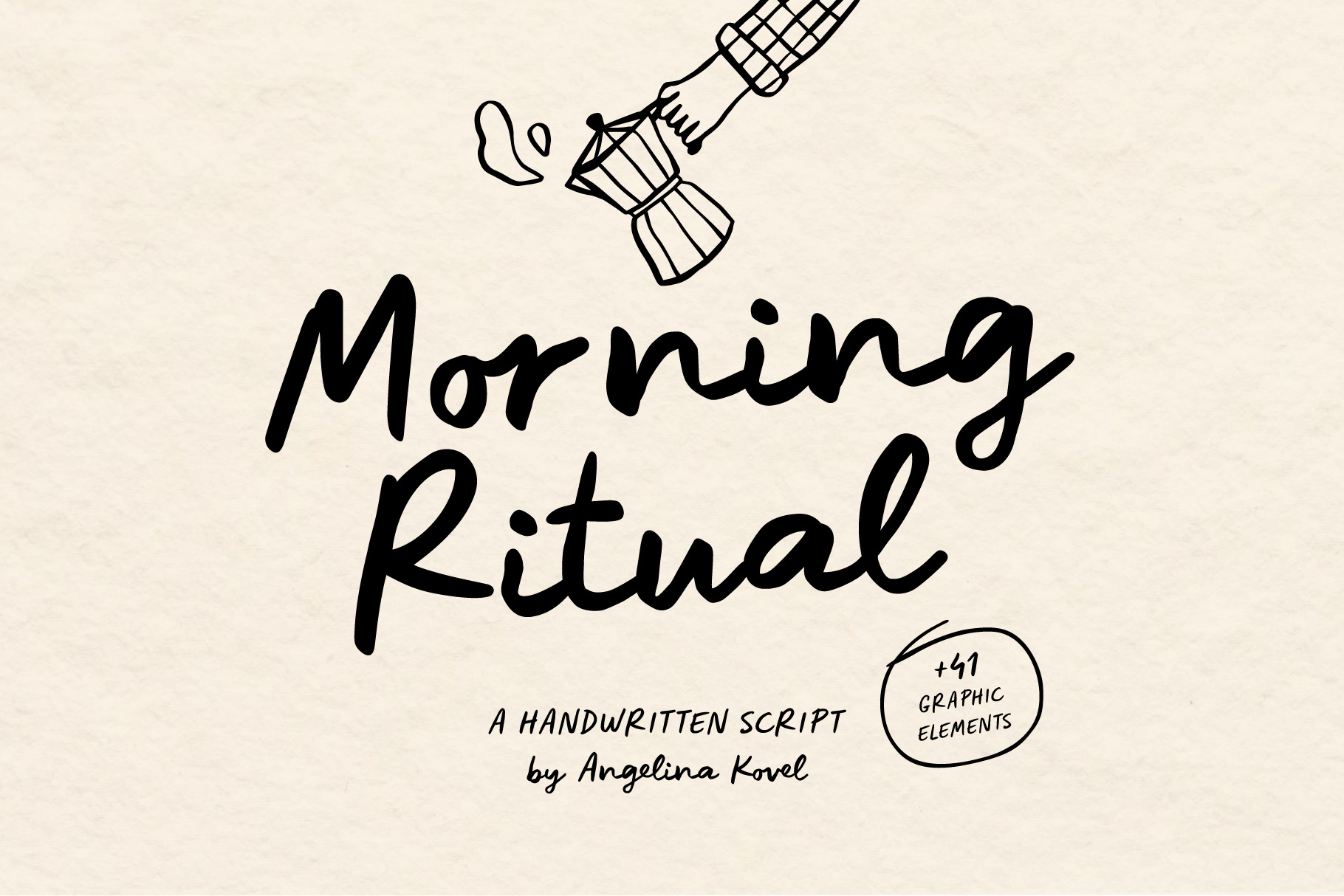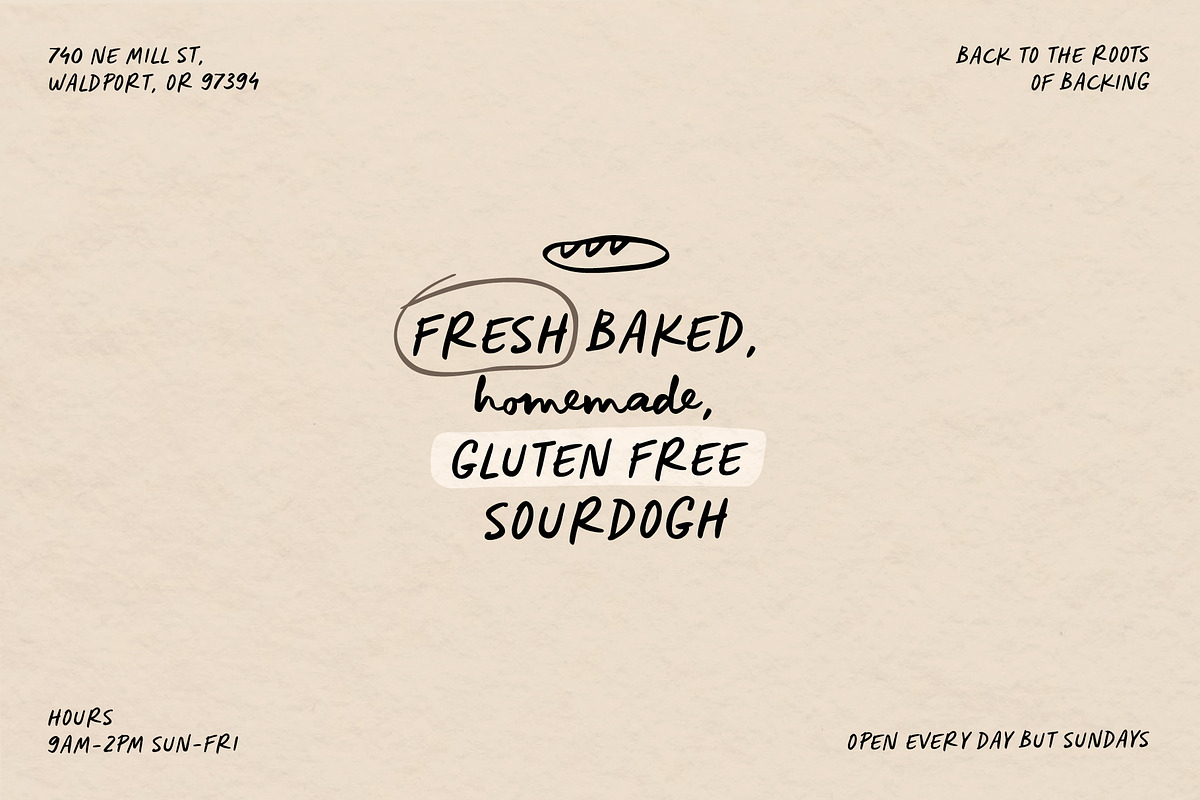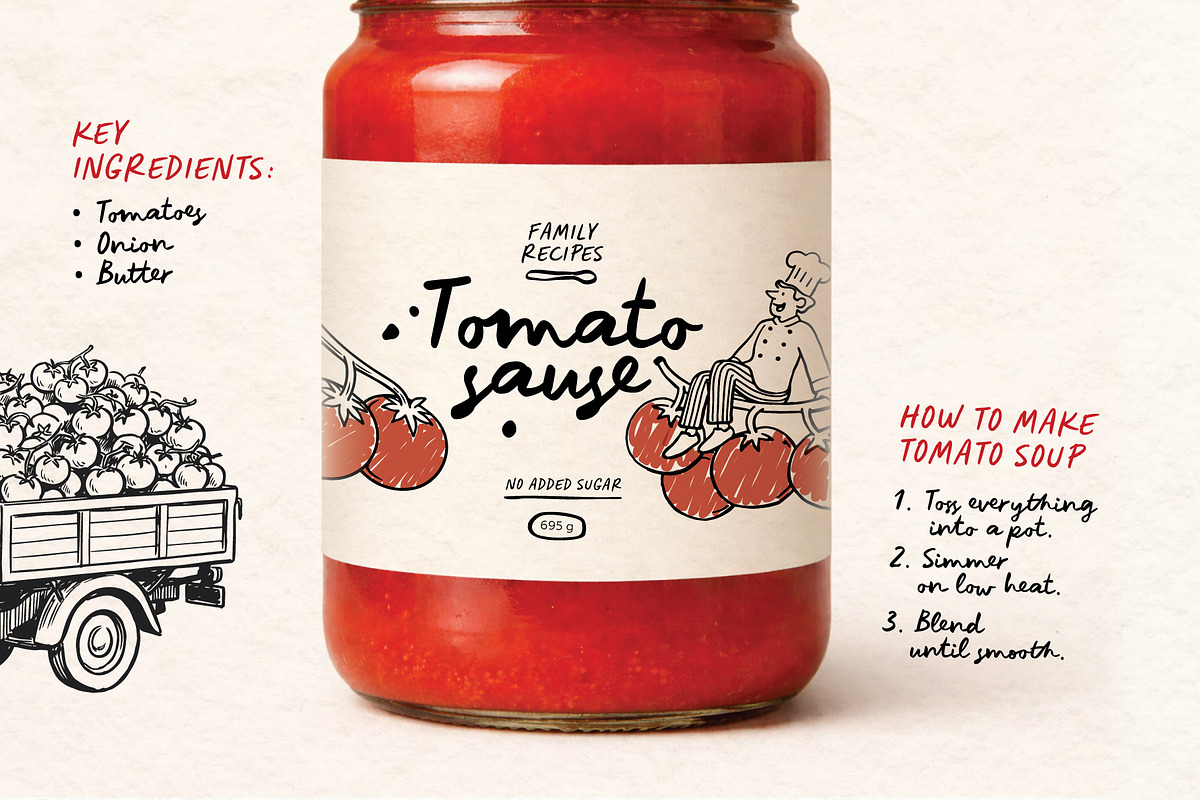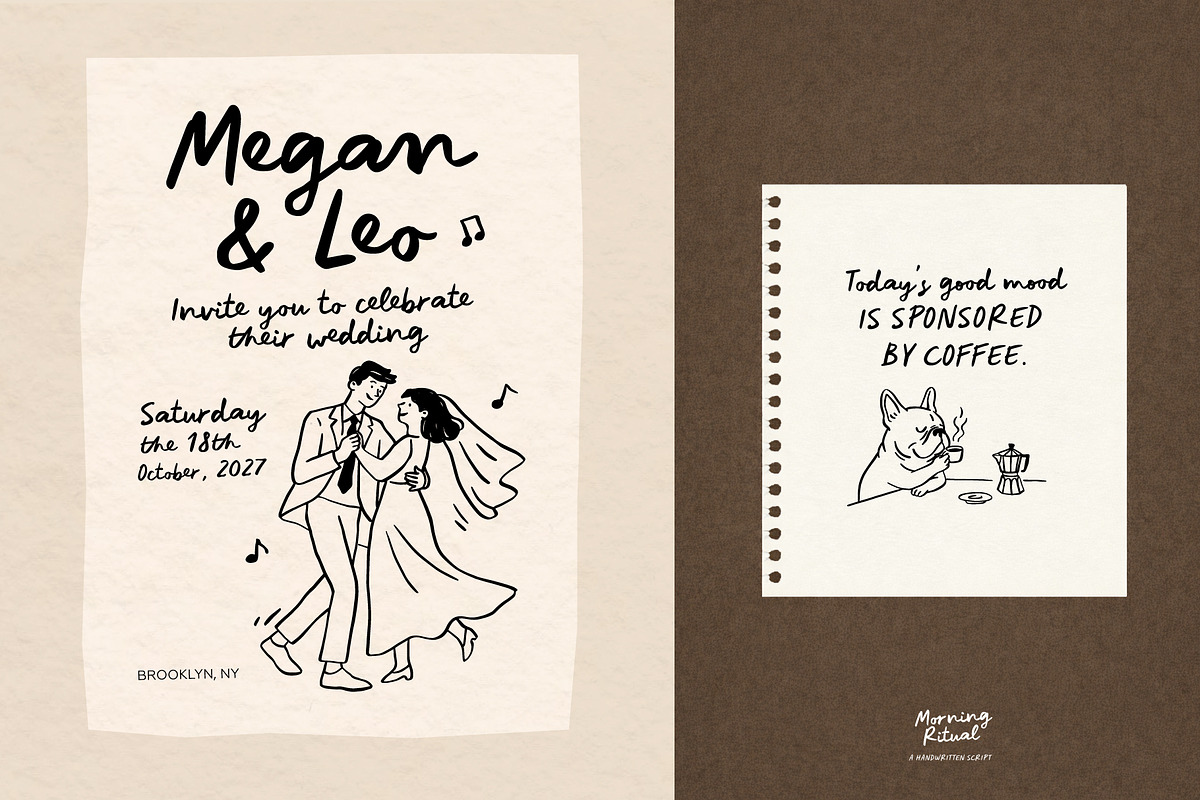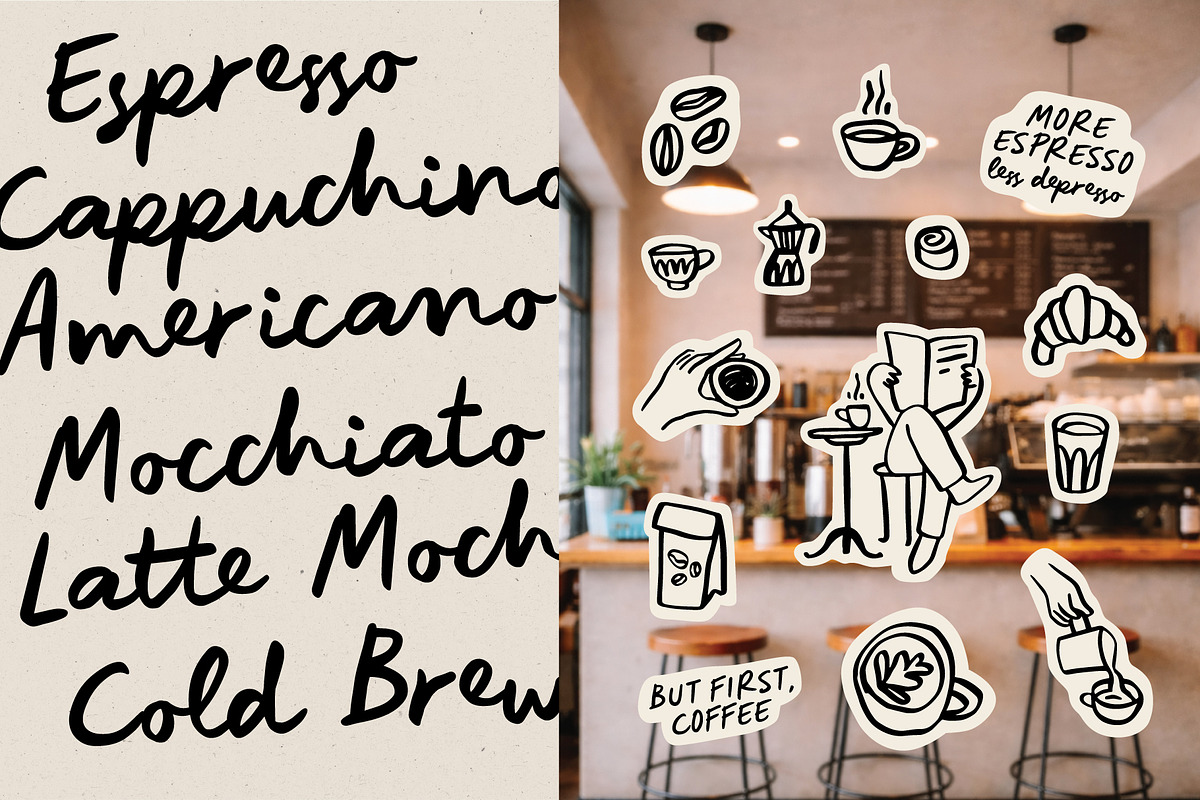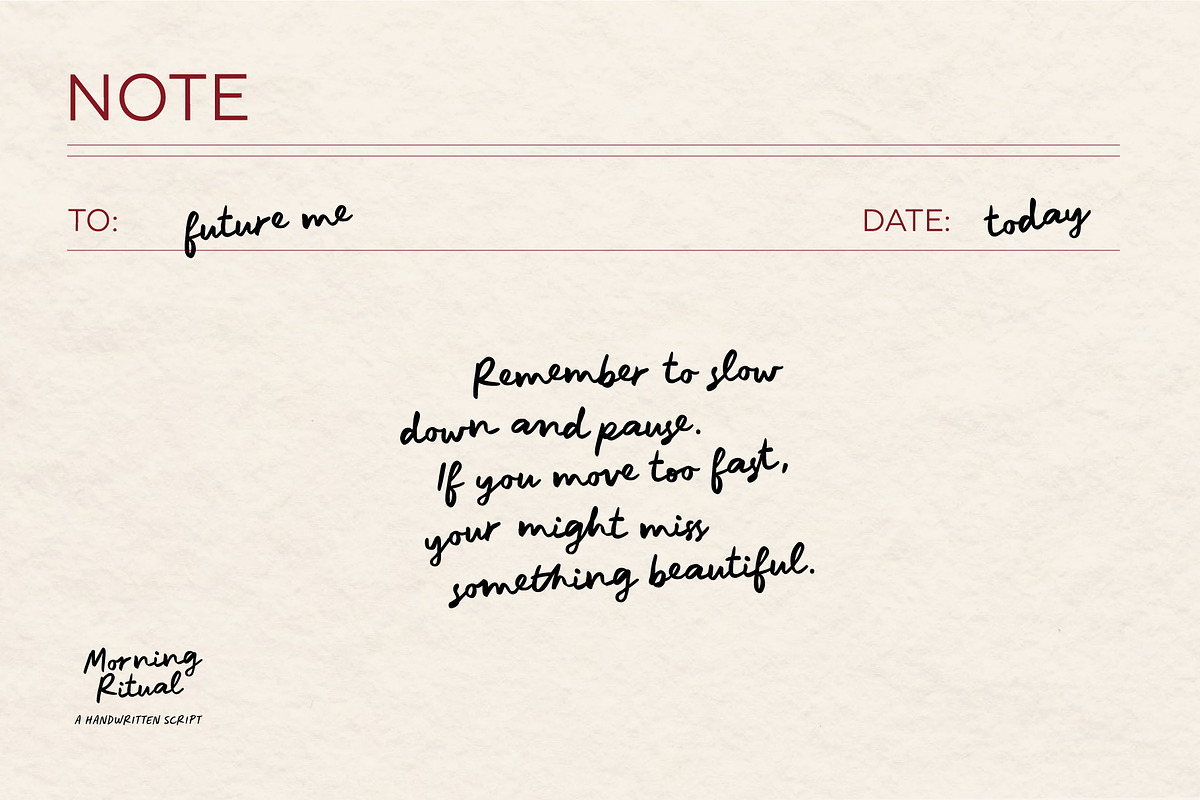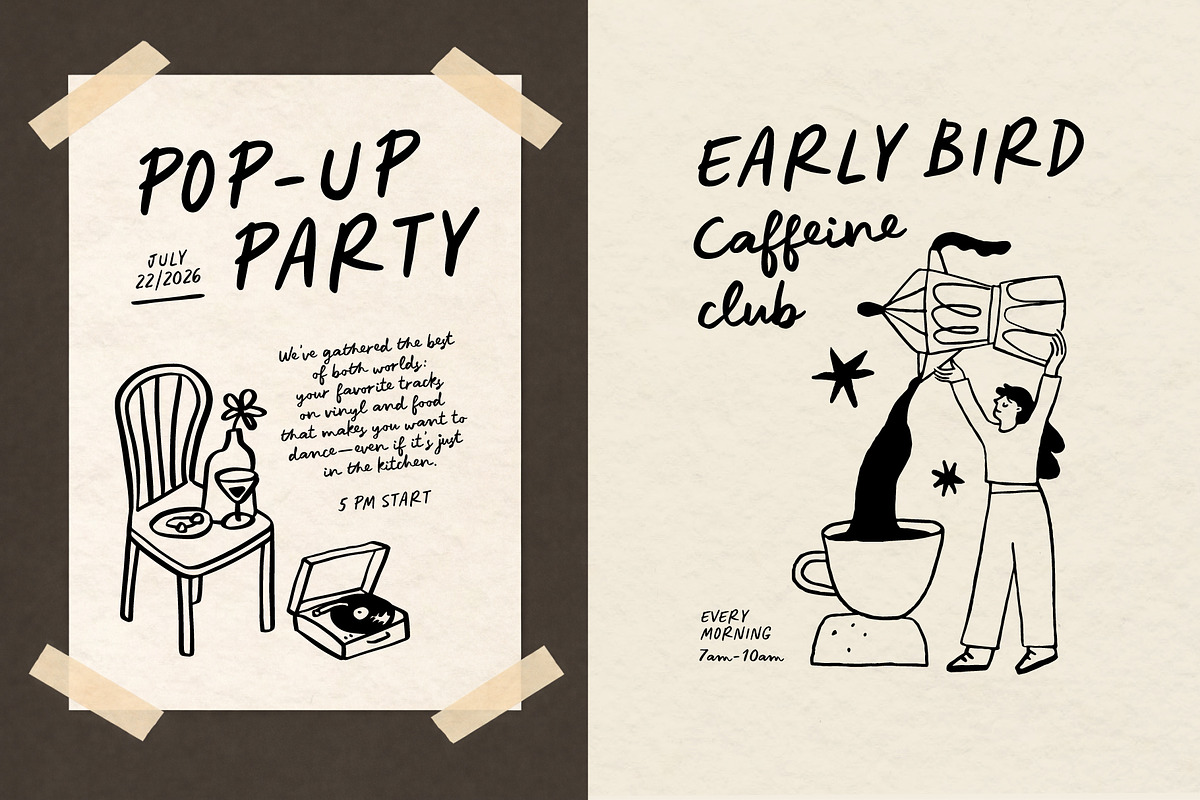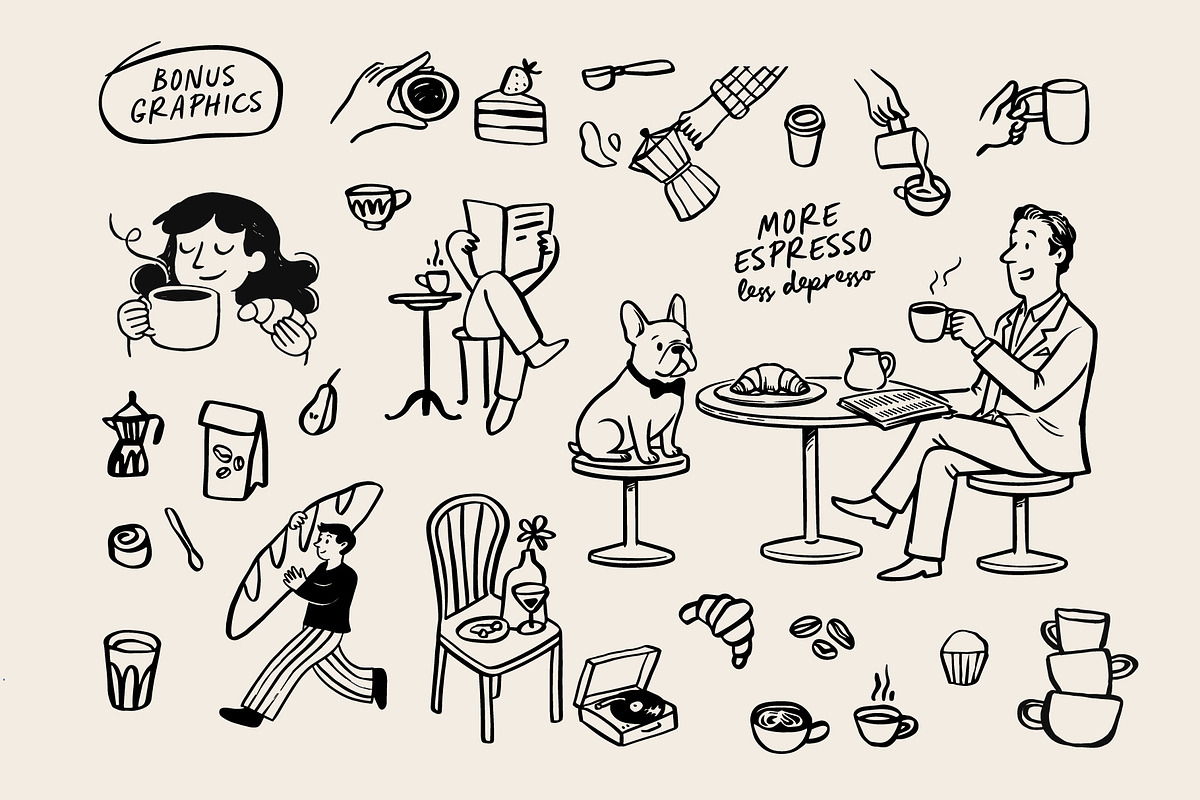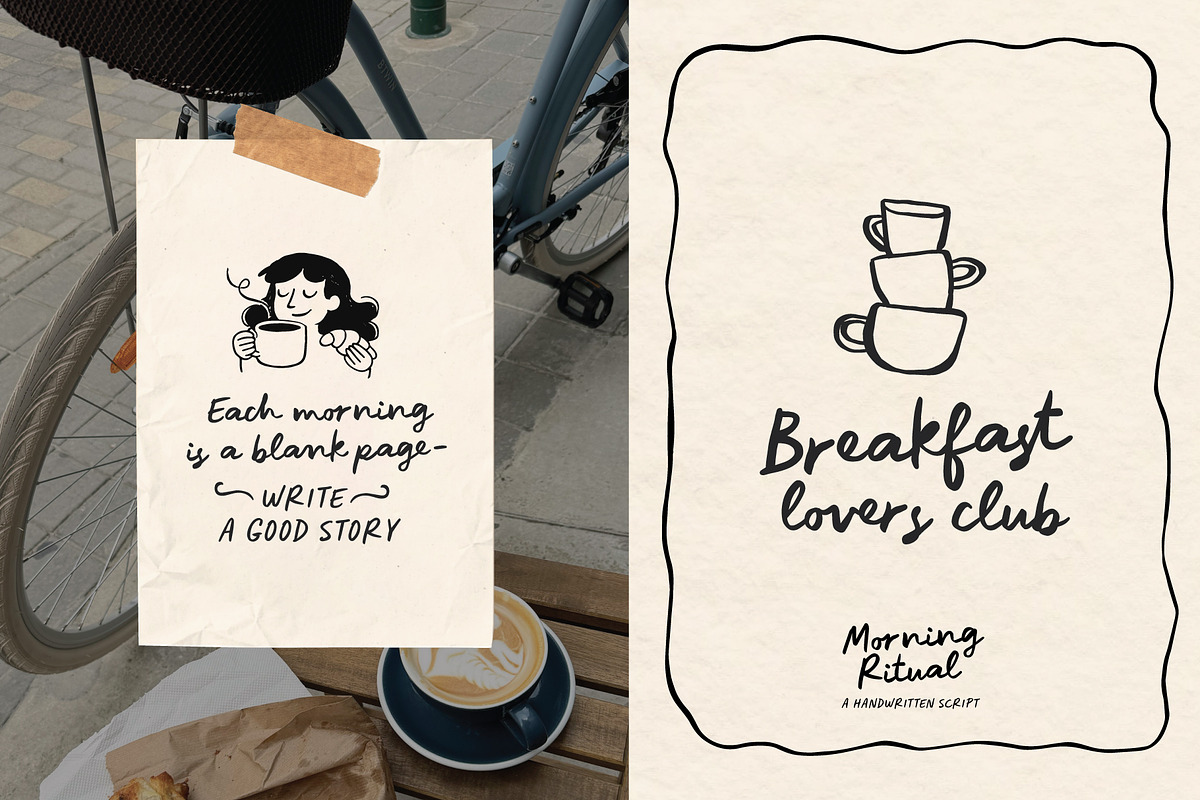
Morning Ritual | Script font
Morning Ritual is a handwritten font that feels like your first sip of coffee: relaxed, authentic, and effortlessly clear. With its naturally imperfect strokes, it captures the slow pace of beautiful mornings. Perfect for posters, branding, and any creative project that needs a touch of handmade warmth.